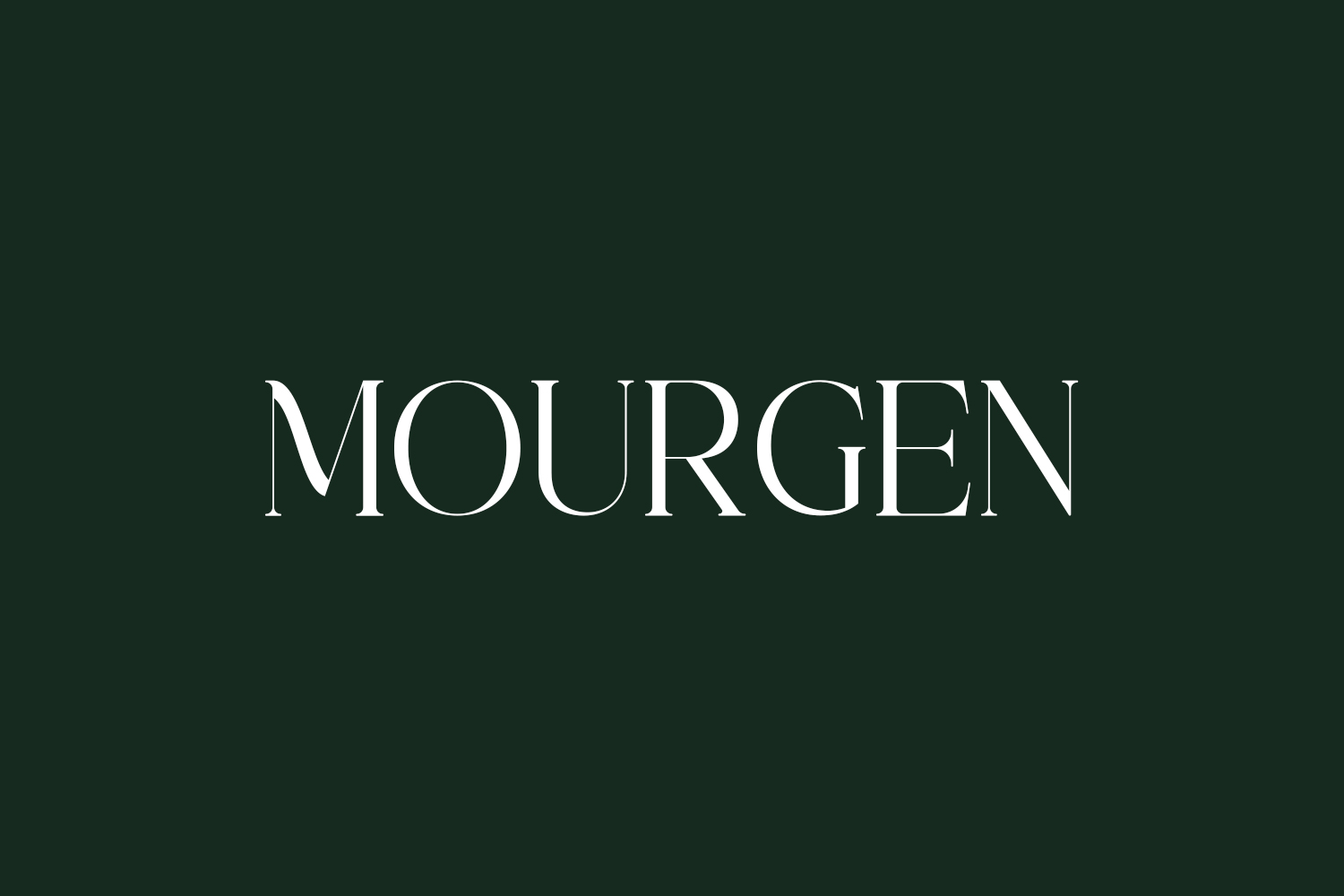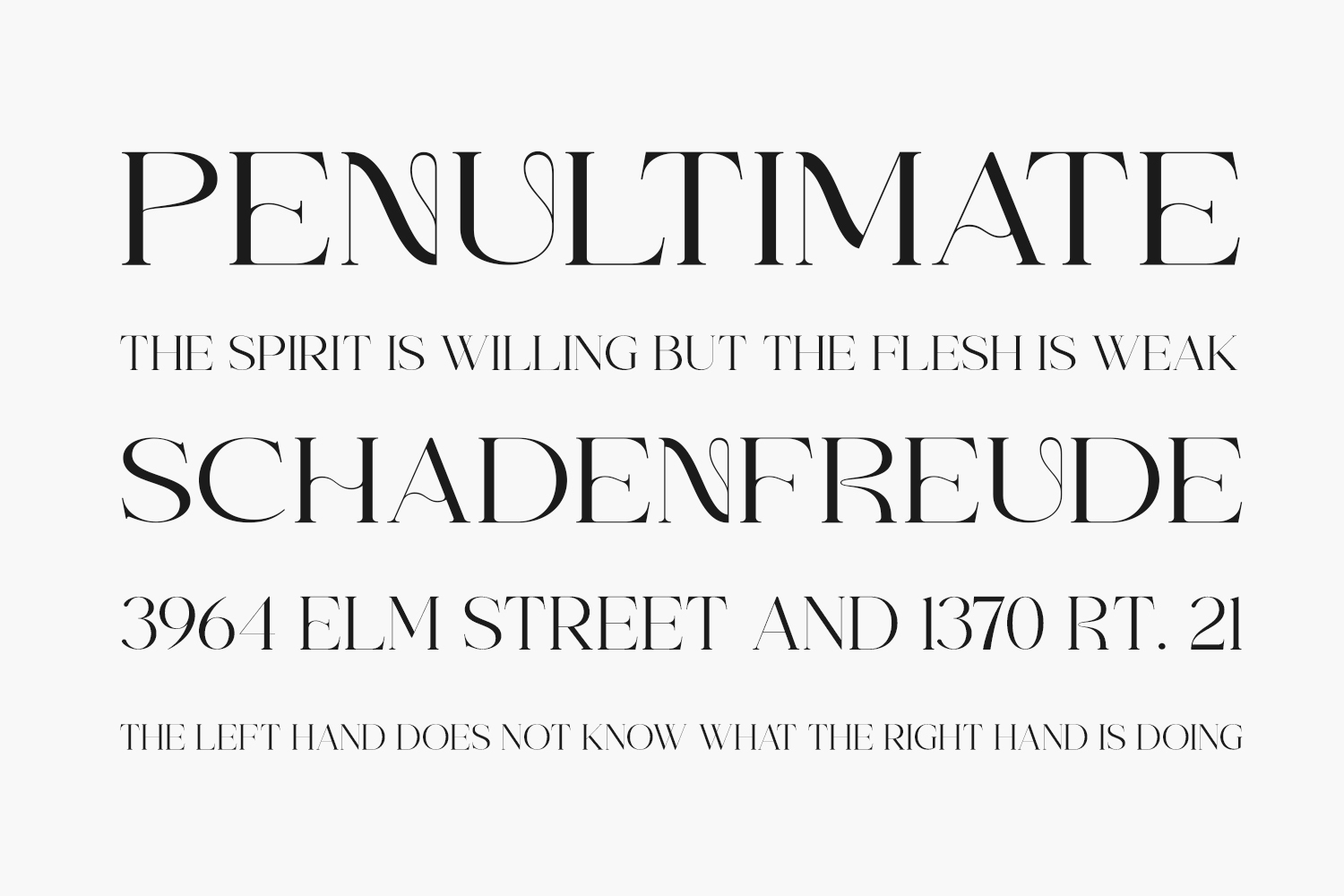
Mourgen Free Font is a sophisticated serif typeface blending modernity with classic elegance, boasting a unique and exquisite aesthetic. Ideal for crafting elegant and luxurious logos, book or movie titles, fashion brands, magazines, clothing designs, lettering, quotes, and beyond. Elevate your projects with Mourgen’s timeless appeal and versatility. Download the font for free if you need it for personal use or purchase the full version for commercial use.